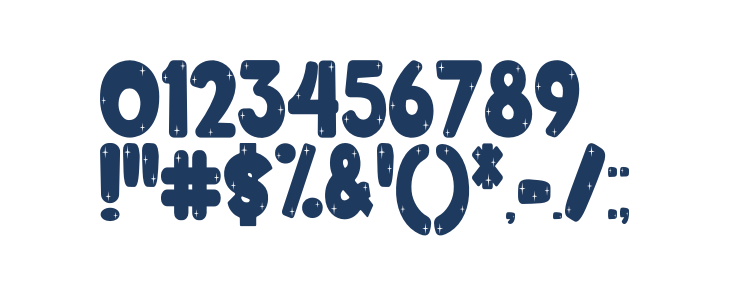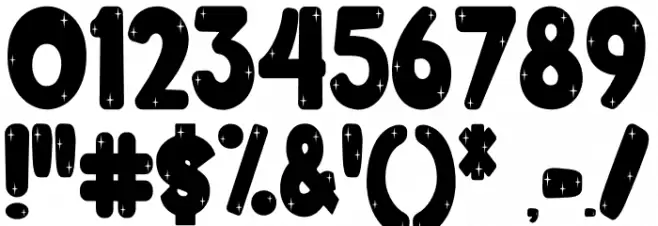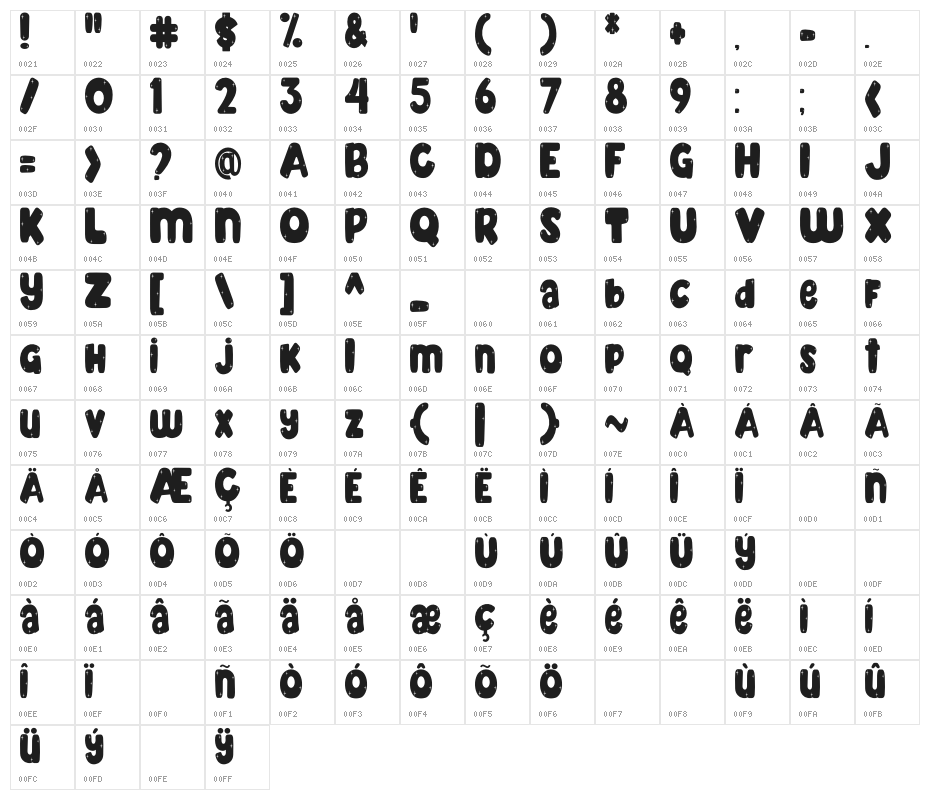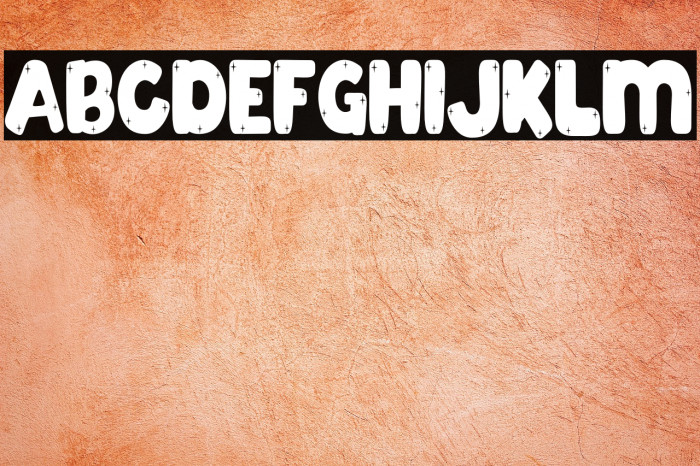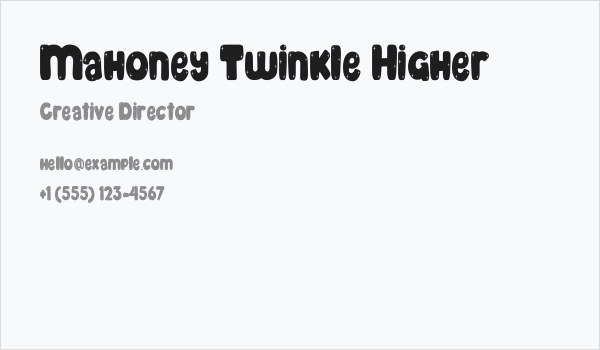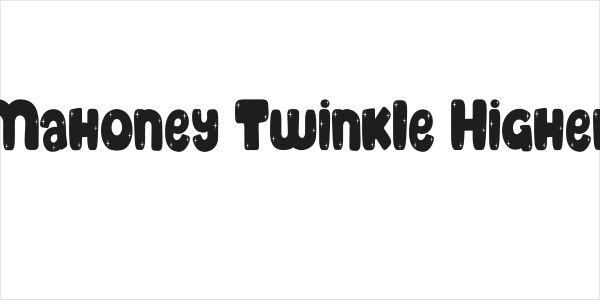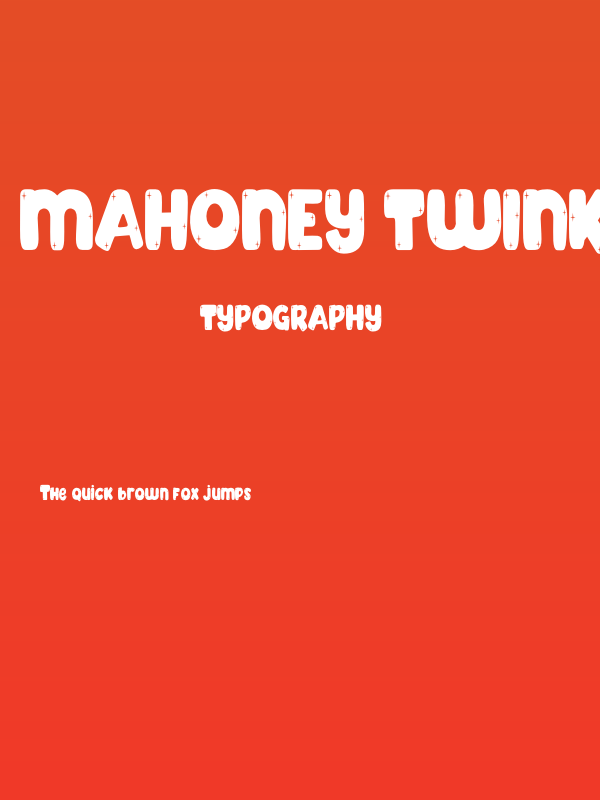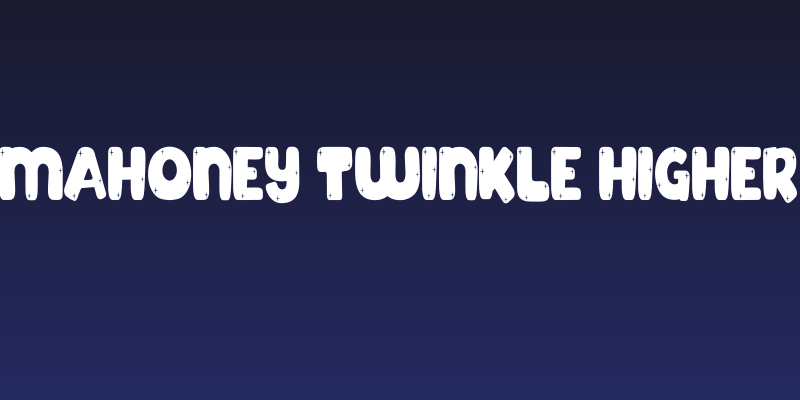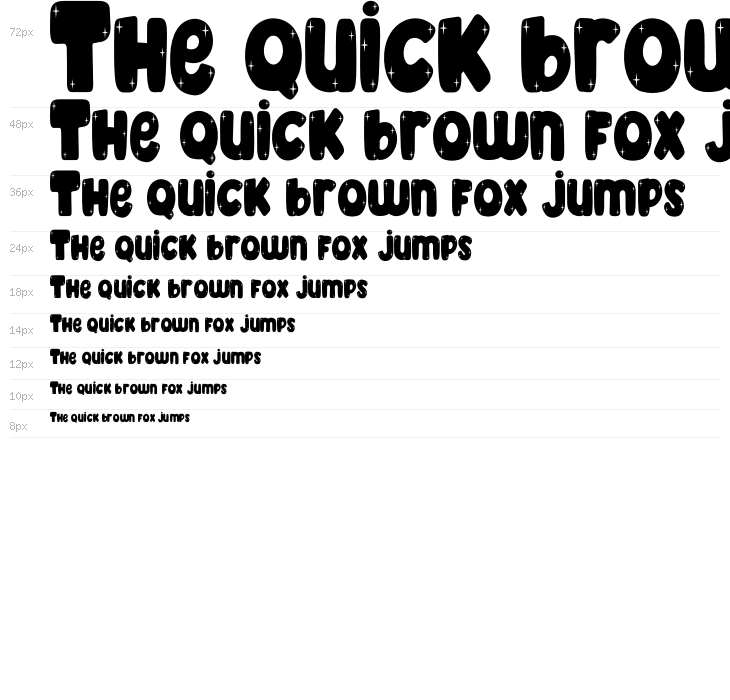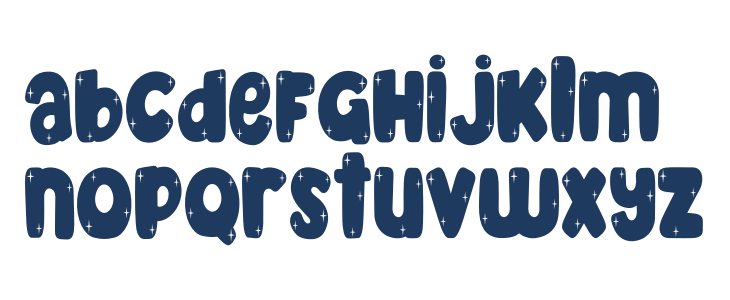
Mahoney Twinkle Higher Font
Mahoney Twinkle Higher Description
This playful and bold font features rounded, chunky letters with a unique starry pattern embedded within each character, giving it a whimsical and eye-catching appearance. The uppercase and lowercase letters maintain a consistent style, with smooth curves and a slightly condensed form. The numbers and special characters follow the same design, ensuring a cohesive look across all text. The font's distinctive style makes it ideal for projects that require a fun and engaging visual element.
| Proposed Projects | Perfect for children's books, playful branding, party invitations, and creative posters. |